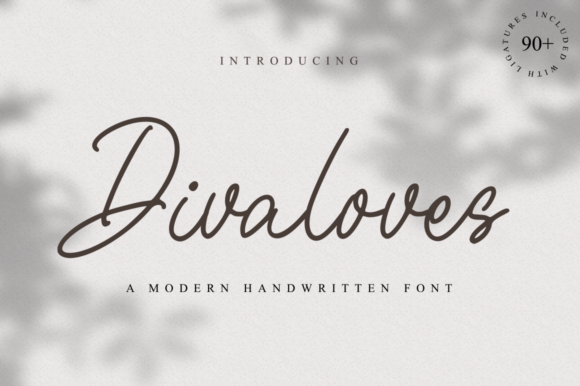
Embark on a Typographic Journey with Divaloves Font: The Enchanting Script for Christmas Designs
In a world of digital expression, where words dance across screens and pixels tell tales, the choice of font holds immense power. Divaloves Font, a creation of NissaStudio, is not merely a collection of letters; it's an invitation to embark on a typographic odyssey, where elegance and charm intertwine to create a visual symphony.
Divaloves Font is a graceful symphony of curves, a cursive script that evokes the spirit of handwritten notes penned with love and care. Its characters, meticulously crafted with balance and harmony, dance across the page like delicate snowflakes falling on a winter's day. This font is a masterpiece, a testament to the artistry that can be found within the realm of digital typography.
Designed with versatility in mind, Divaloves Font seamlessly complements a diverse range of romantic designs. Its flowing lines lend an air of sophistication to wedding invitations, adding a touch of elegance to the most special day of your life. Unleash your creativity and let Divaloves Font transform your designs into captivating works of art.
With Divaloves Font, the possibilities are endless. Create eye-catching logos that command attention, design social media posts that captivate audiences, or craft stunning cards and posters that leave a lasting impression. This font is the perfect companion for any project that seeks to evoke a sense of romance, elegance, and timeless beauty.
So, dive into the world of Divaloves Font and let your creativity soar. Embrace the magic of beautiful typography and create designs that speak to the heart. From enchanting Christmas designs to heartfelt love letters, Divaloves Font is your trusted companion on this typographic journey.